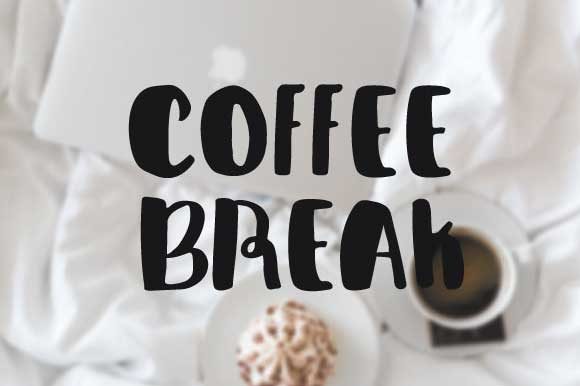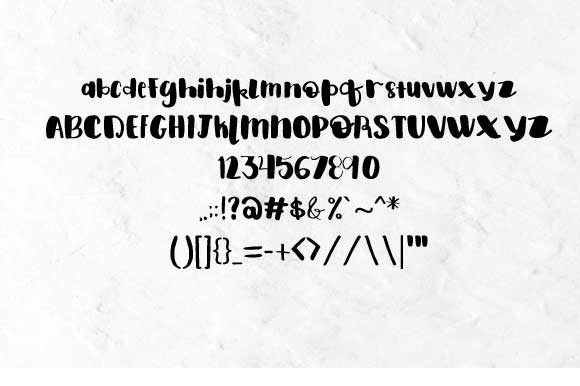
Adding a Personal Touch to Your Designs
Have you ever been working on a design project and felt like something was missing – a personal touch that sets it apart from the rest? You know, that special something that makes it truly yours?
That’s where Boba Font comes in – a chubby and friendly script designed to bring authenticity and personality to your next design idea. Perfect for adding a human touch to your branding, packaging, or even social media graphics, Boba Font is the perfect companion for any creative project. Its unique charm and playfulness make it a valuable addition to any designer’s toolkit.
Whether you’re a seasoned pro or just starting out, incorporating Boba Font into your designs can elevate your work and make it truly stand out from the crowd. So why not give it a try and see the difference it can make for yourself?
Boba Font Key Features
- Font Family: Boba Font is a sans-serif font family designed for digital use.
- Size: Boba Font comes in multiple weights, ranging from Thin to Black, with corresponding sizes.
- Unique Characteristics: Boba Font features a distinctive rounded design with subtle rounded edges, giving it a friendly and approachable feel.
Boba Font Review
Overall, I was excited to dive into the world of Boba Font. It’s a quirky, hand-drawn font that immediately caught my eye with its fun, playful vibe. ✨ One of the things that works well in Boba Font is its versatility – it’s perfect for creating eye-catching titles, headings, and even body text in certain contexts. The font’s unique character set and varied weights make it a great choice for designers looking to add some personality to their projects.
- Fun, playful vibe that’s perfect for creative projects
- Excellent for creating eye-catching titles and headings
- Good for body text in certain contexts
- Varied weights and character set make it versatile
However, I did encounter some limitations while working with Boba Font. ⚠️ One of the main issues is its readability at smaller font sizes – the font can become a bit fuzzy and difficult to read. Additionally, the font’s quirks can sometimes make it hard to use in more formal or professional settings. I also found that the font’s character set is not as extensive as some other fonts, which can be limiting in certain projects.
Overall, I think Boba Font is a solid choice for designers looking to add some personality to their projects. While it may not be perfect for every use case, it’s a great option for creatives who want to inject some fun and whimsy into their designs.
Tips for Getting the Most Out of Boba Font
Use Boba Font to create eye-catching headings and titles.
Pair Boba Font with other fonts to create a unique and visually appealing design.
Experiment with different font sizes and styles to maximize the impact of Boba Font.
Use Boba Font for:
Beverage branding (e.g. boba shops)
Food branding (e.g. dessert shops)
Marketing materials (e.g. flyers, posters)
Alternatives to Boba Font for Designers
Pacifico is a beautiful, elegant script font perfect for adding a touch of sophistication to your designs. It’s ideal for use in wedding invitations, branding materials, and other high-end projects where a refined, luxurious feel is desired.
Compared to Boba Font, Pacifico has a more refined and polished look, making it suitable for high-end projects. However, Boba Font has a more playful and whimsical feel that may be more suitable for casual designs.
Anton
Anton is a modern script font with a unique, hand-drawn feel. It’s perfect for use in creative projects such as book covers, magazine headlines, and social media graphics where a touch of personality is desired.
Compared to Boba Font, Anton has a more dynamic and expressive feel, making it suitable for projects that require a bold and attention-grabbing look. However, Boba Font has a more consistent and cohesive feel that may be more suitable for projects that require a consistent brand image.